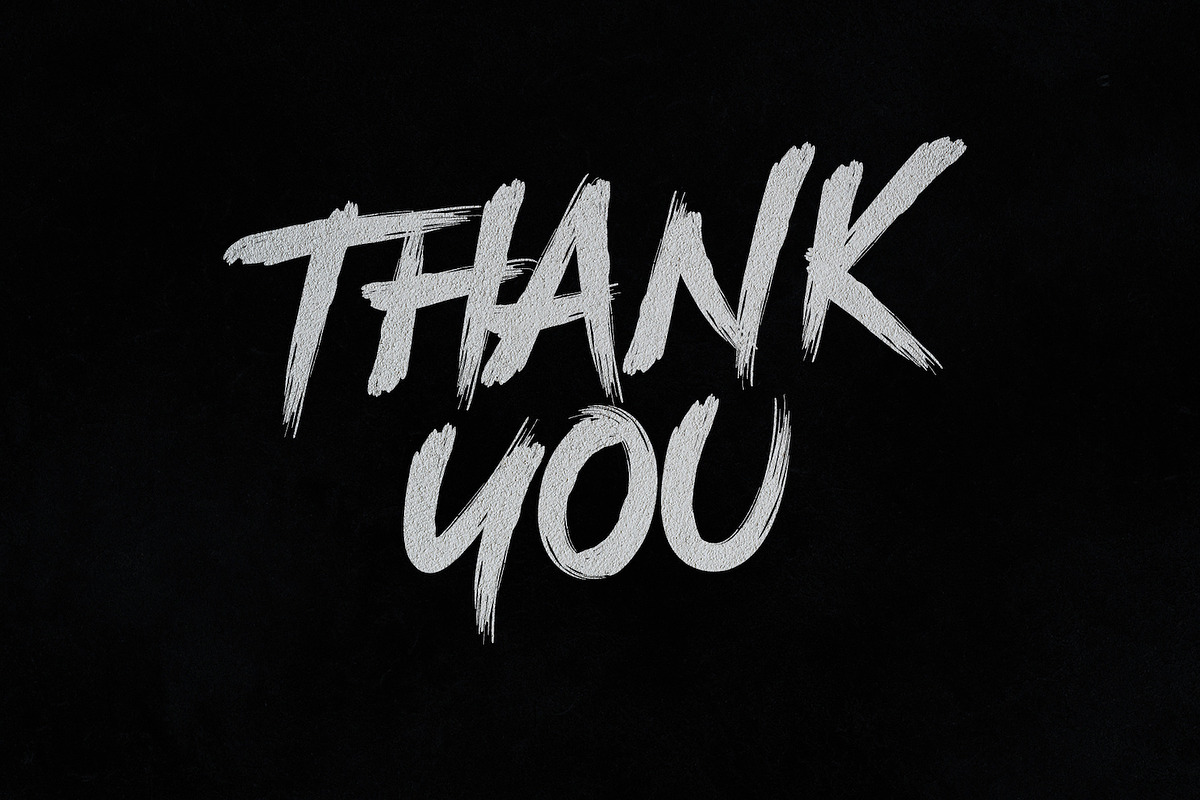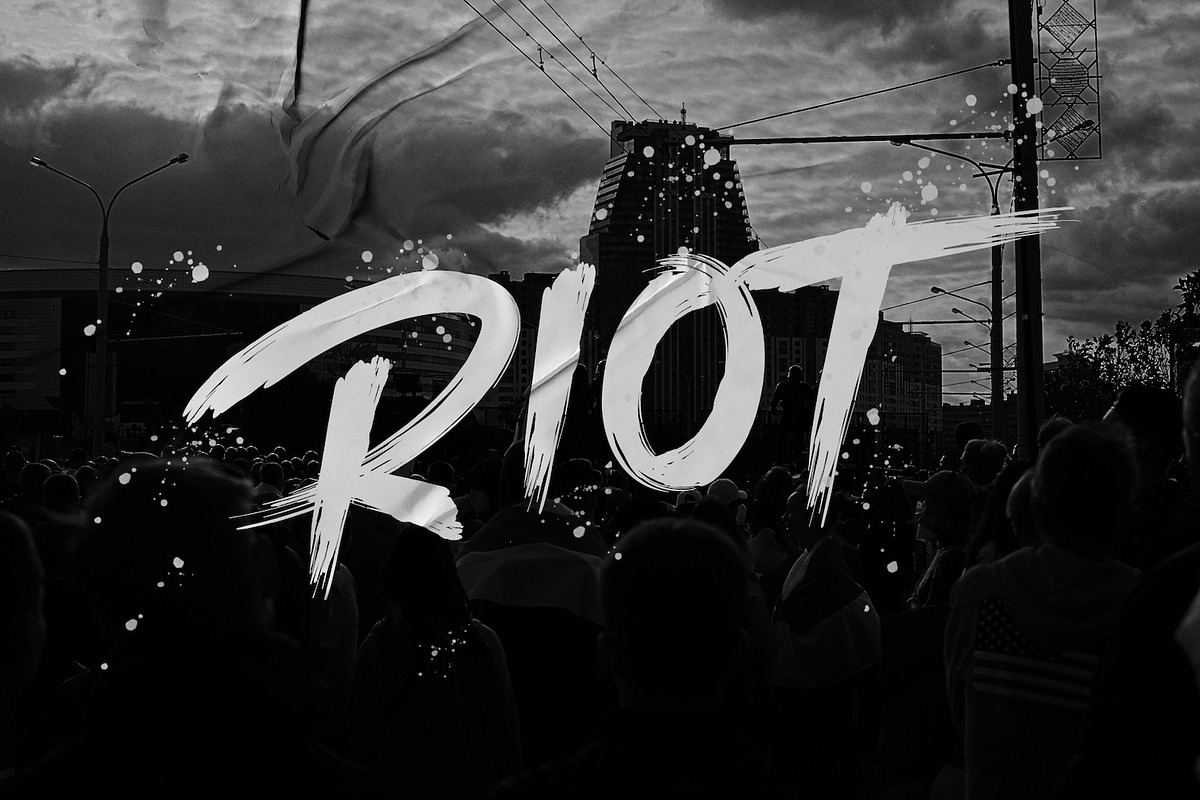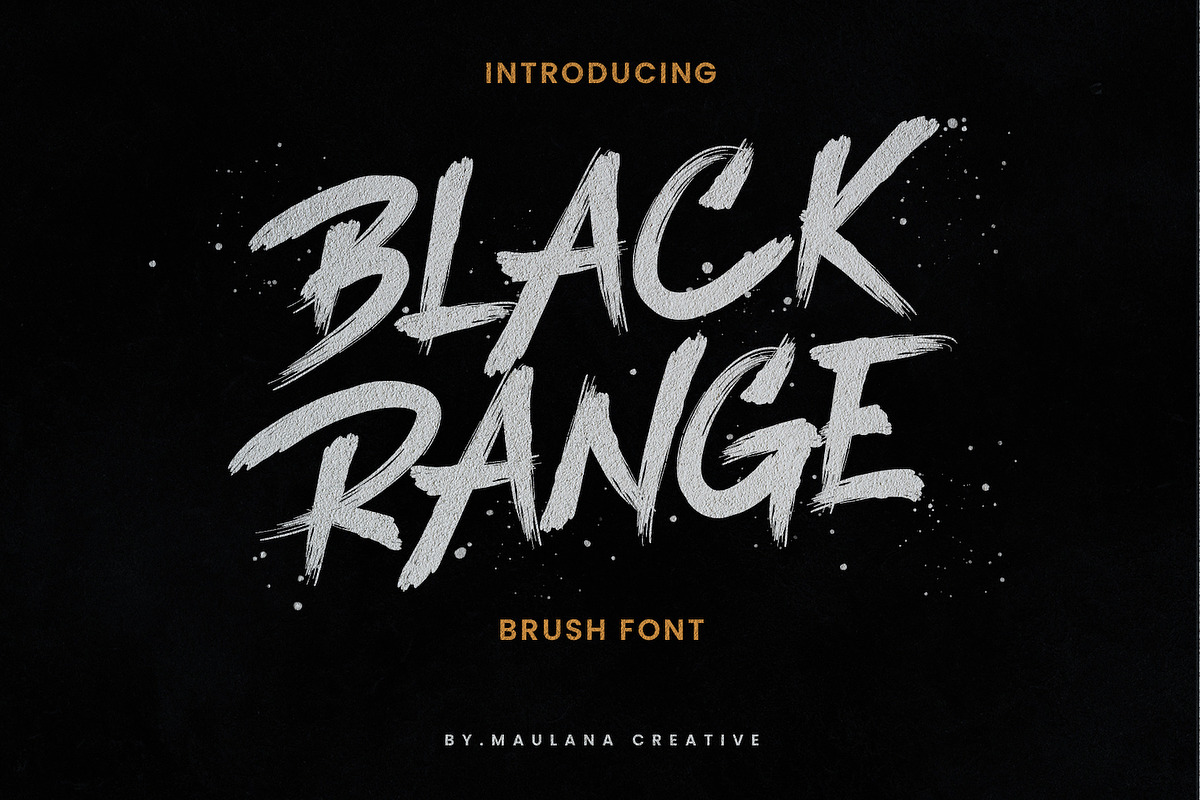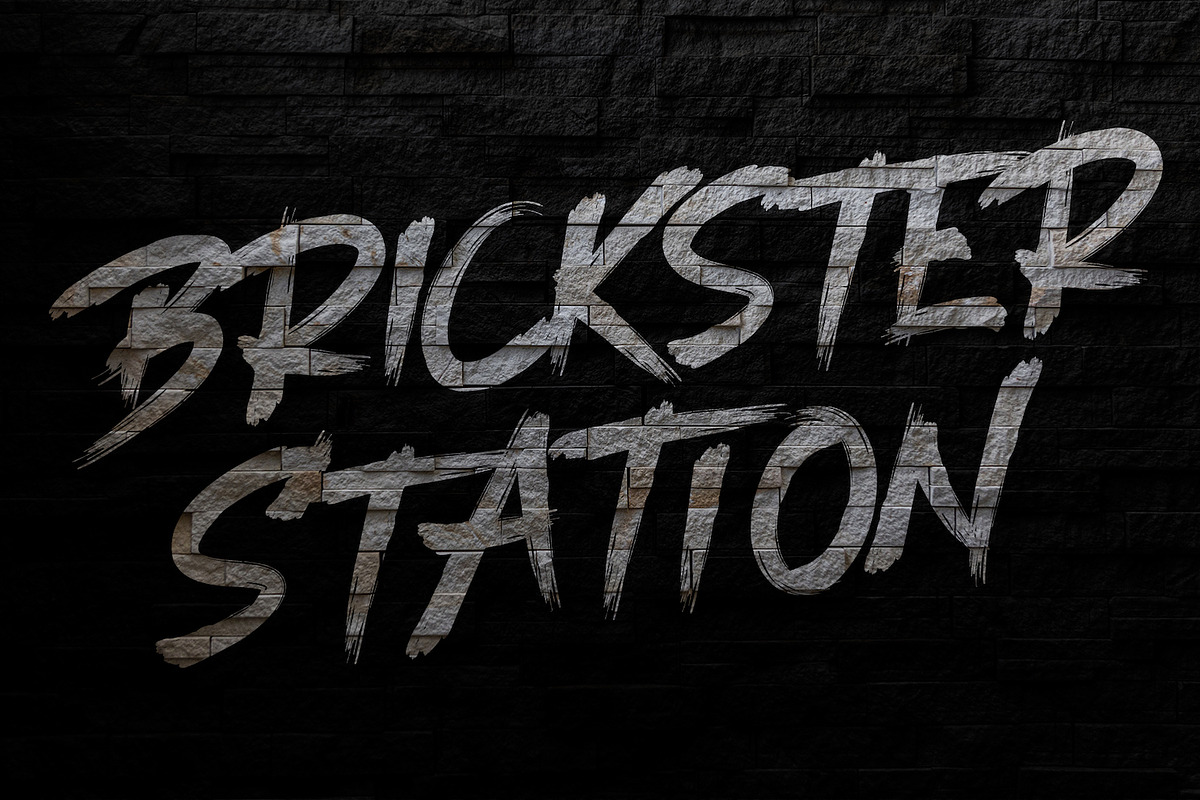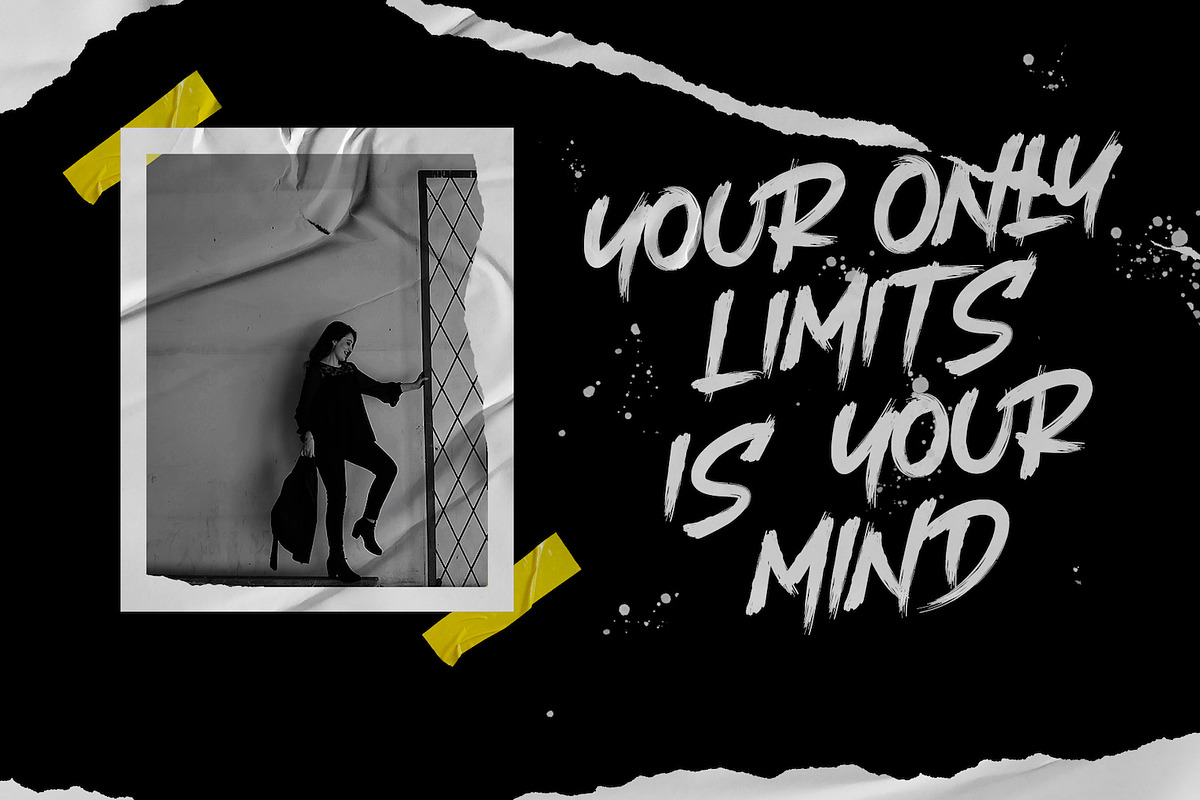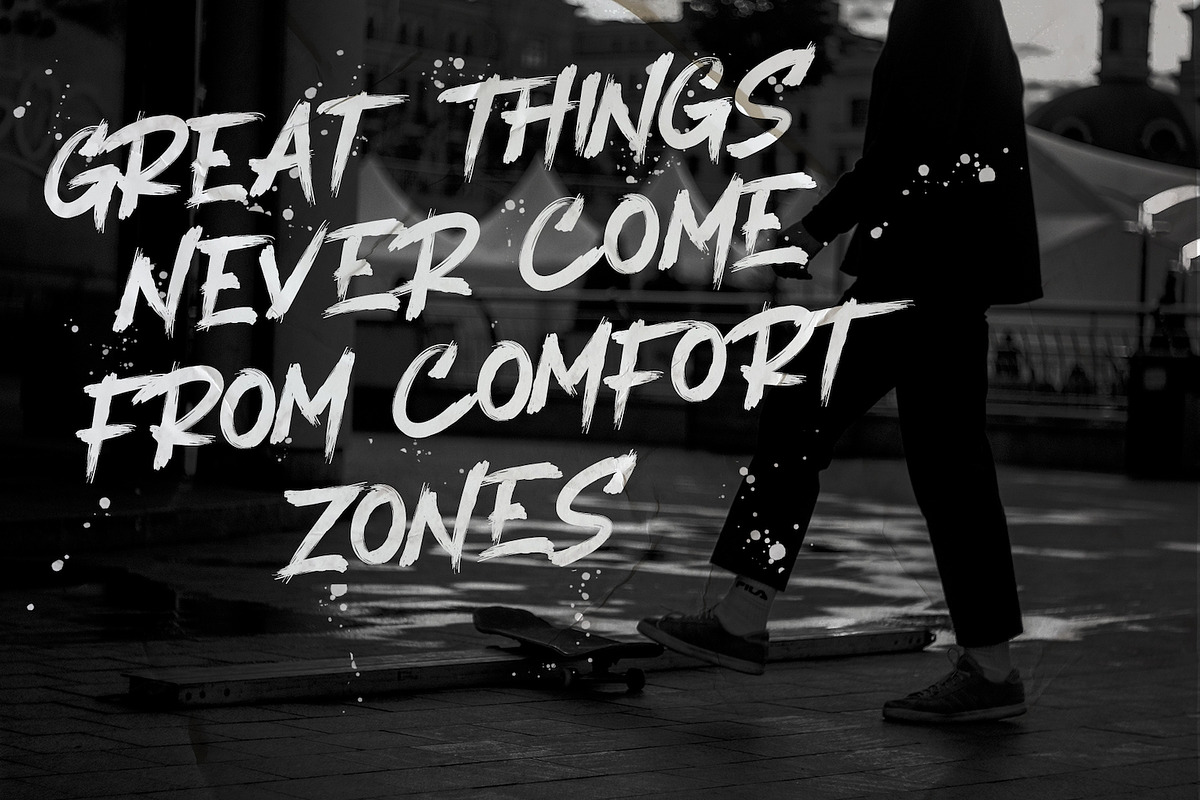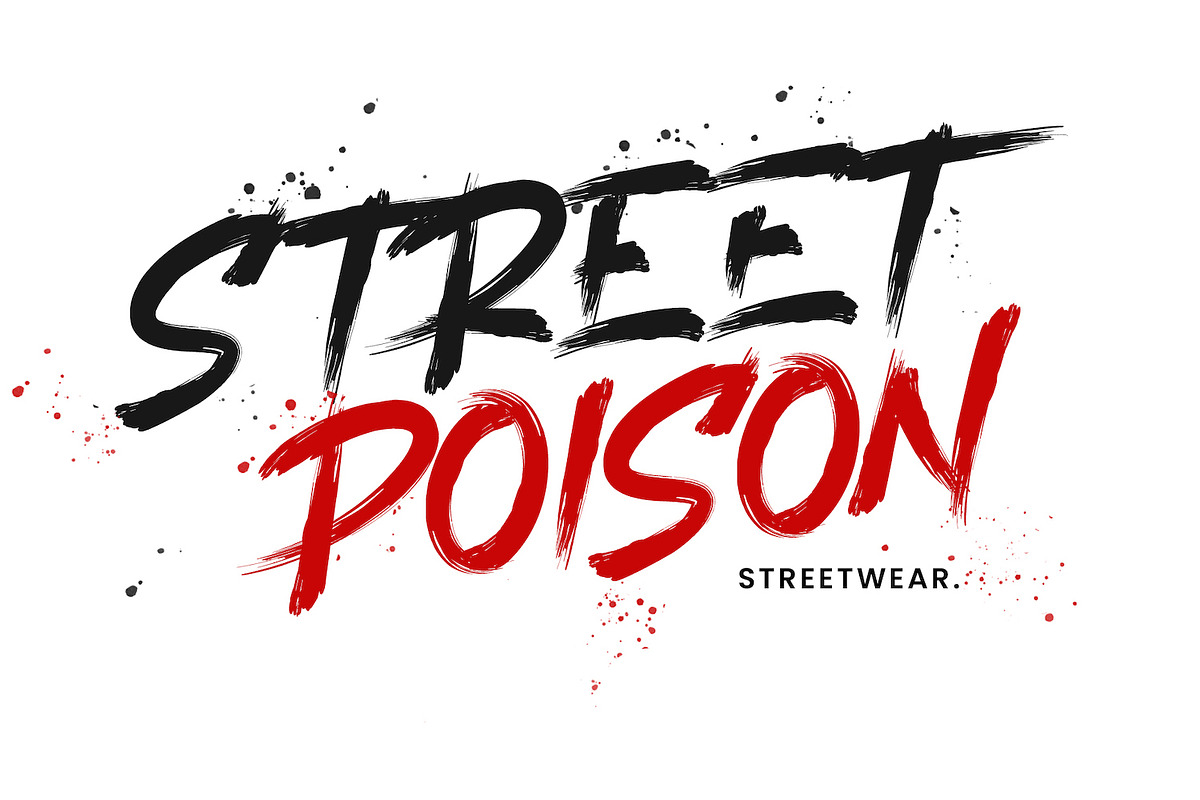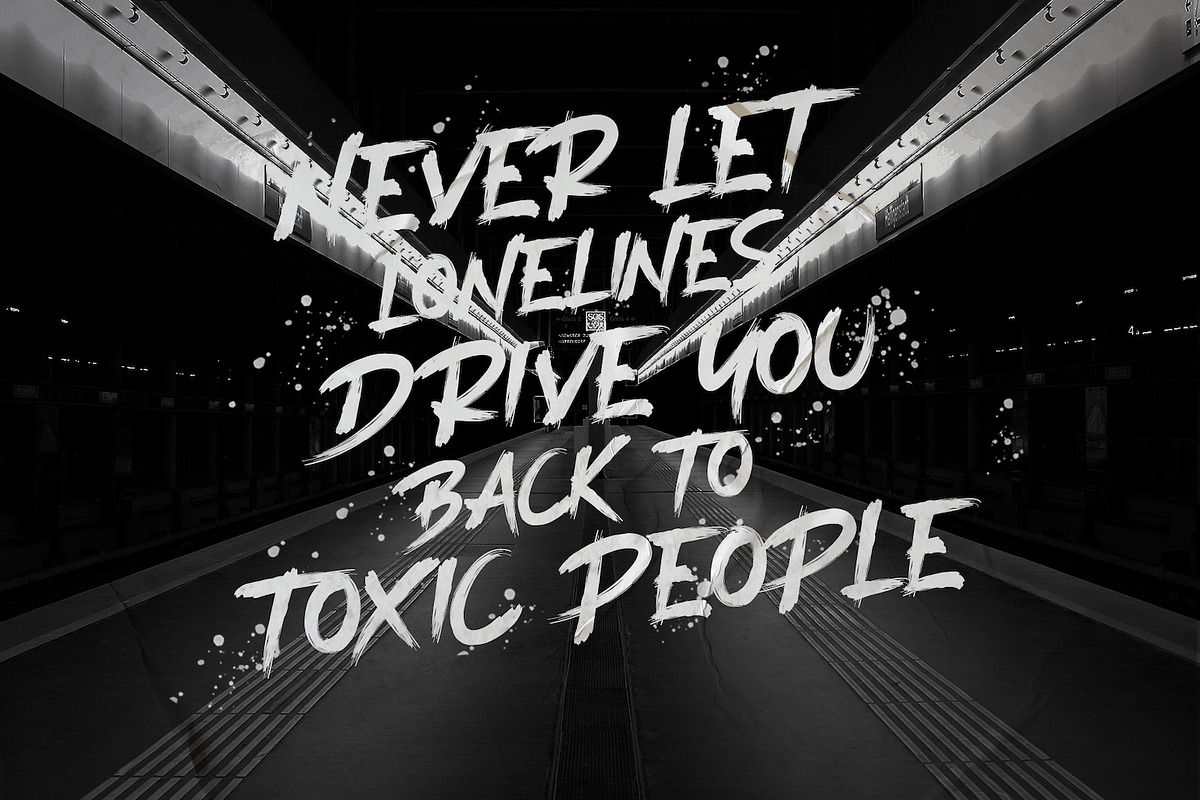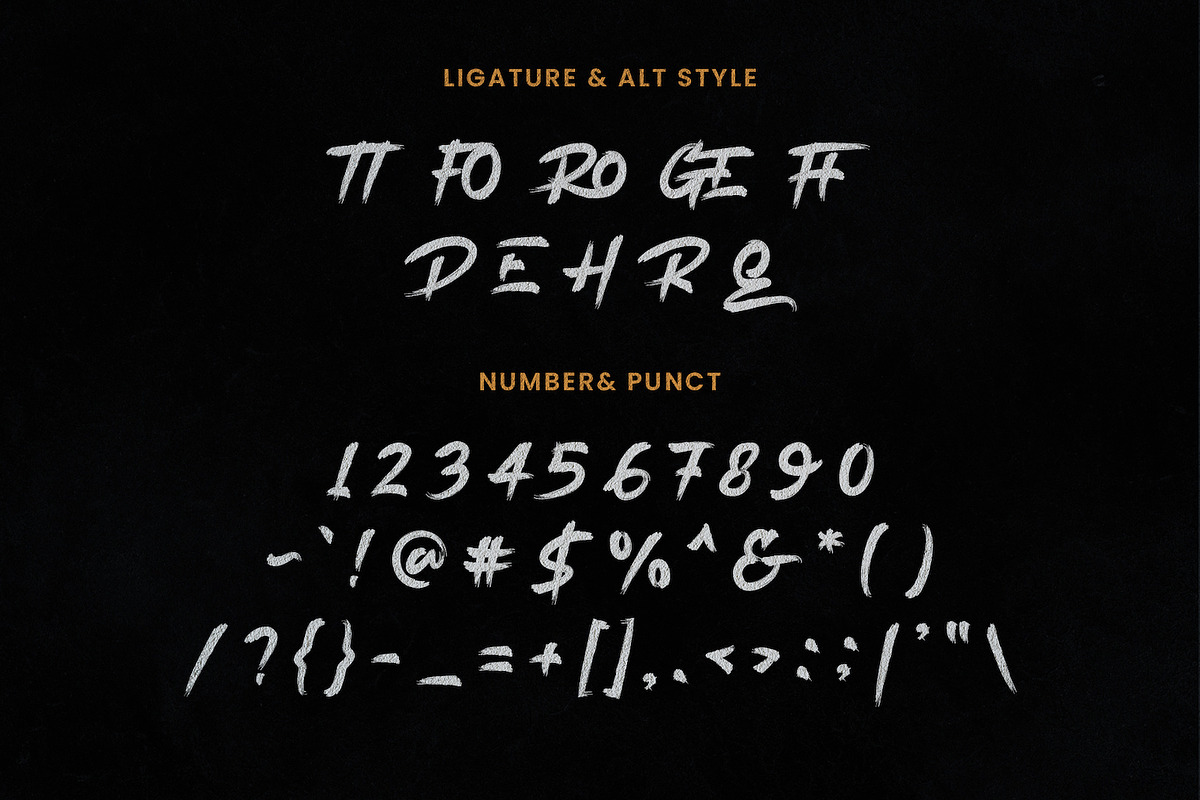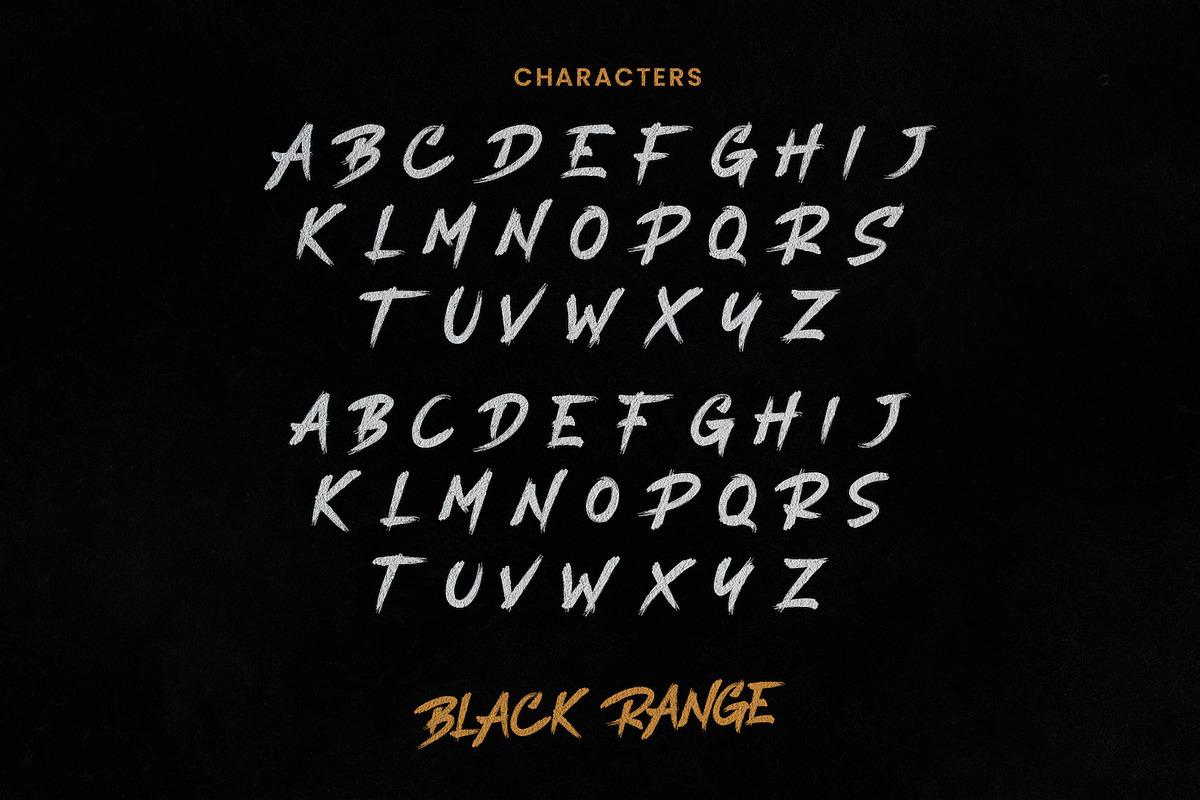
Black Range Brush Font
Give your designs an authentic brush handcrafted feel. “Black Range Brush Font” is perfectly suited to stationery, logos and much more.